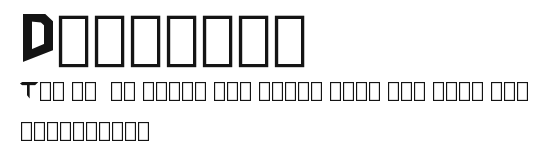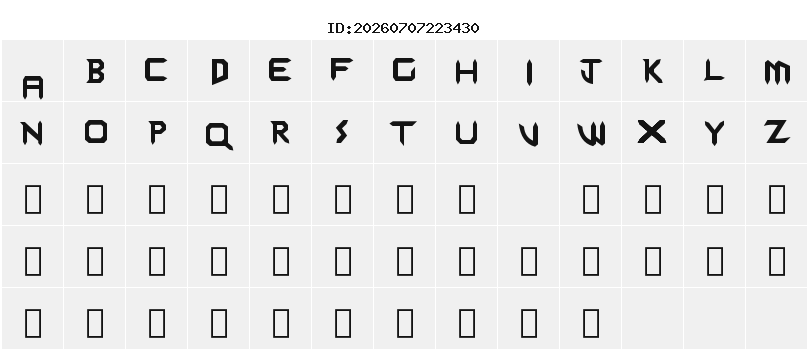
Darkstar Preview
• Font Name: Darkstar
• Full Font Name: Darkstar
About Darkstar.ttf
Darkstar.ttf is a modern, elegant sans-serif font designed for ultimate readability and visual harmony. Perfect for branding, headlines, web design, and print materials.